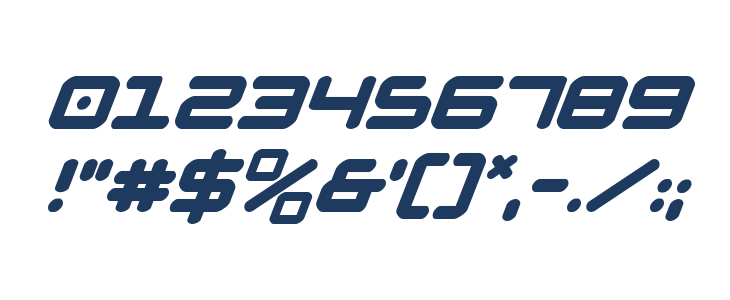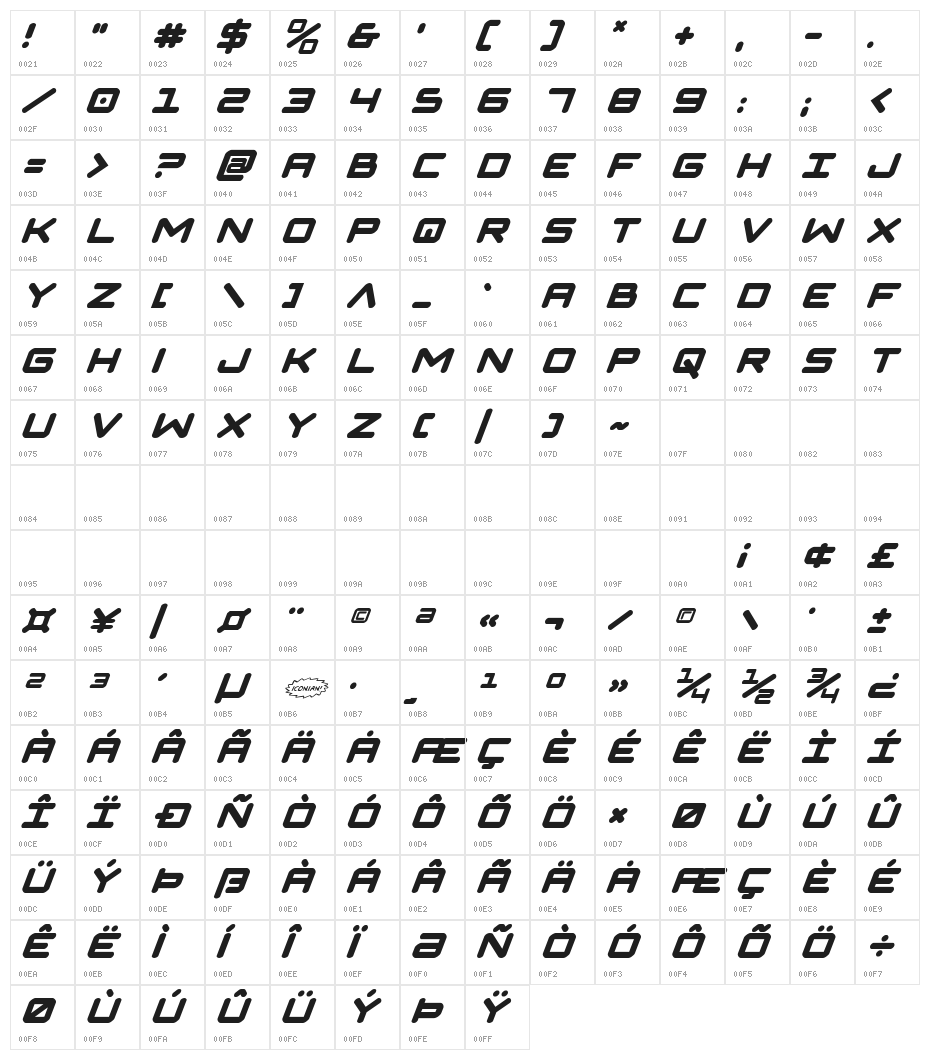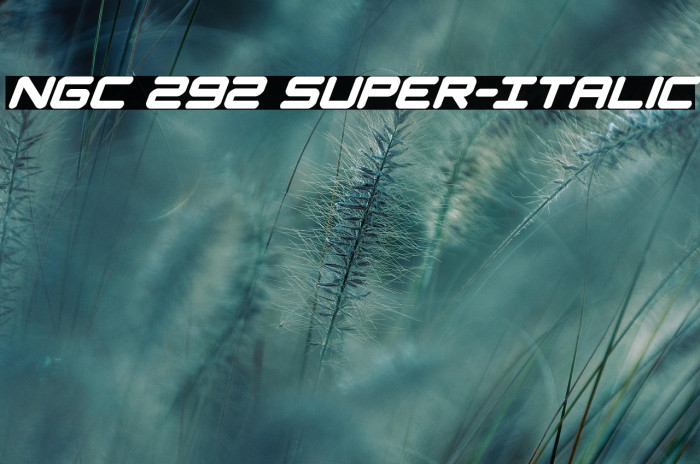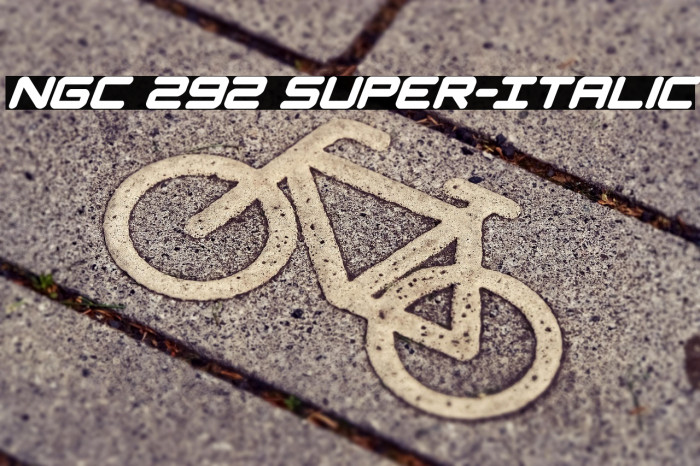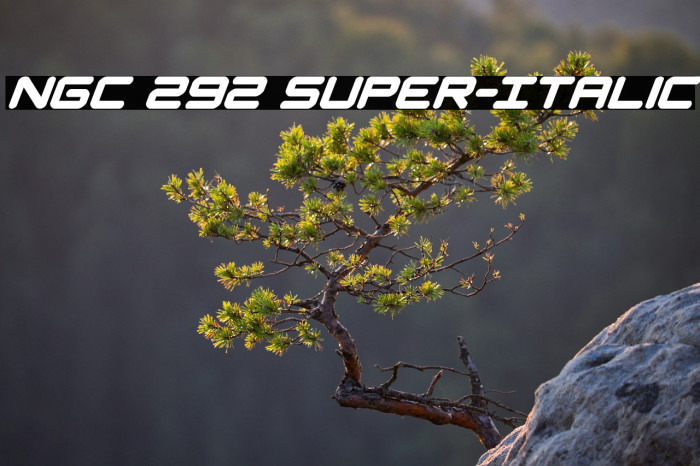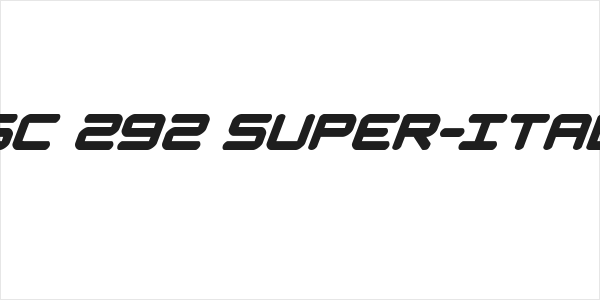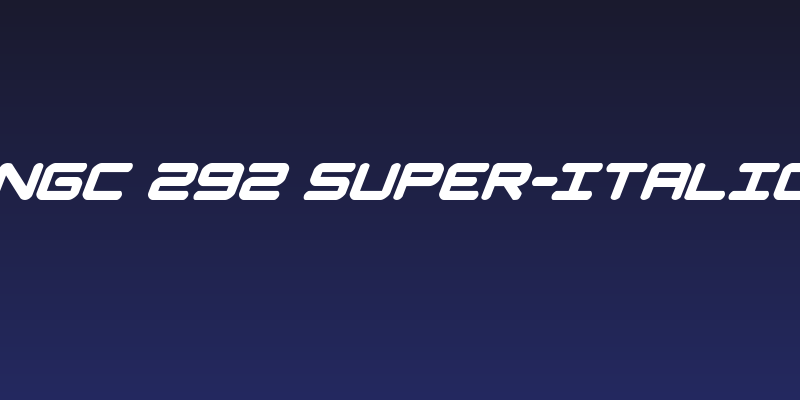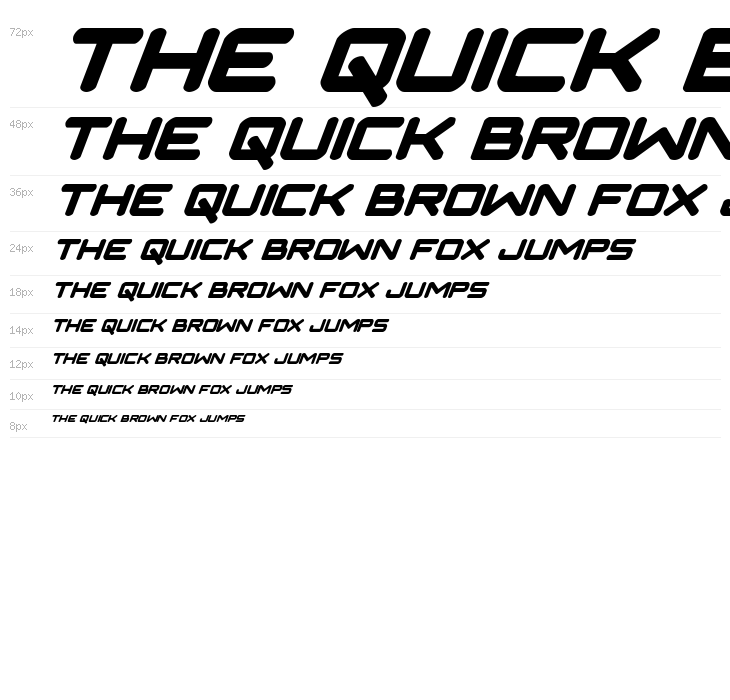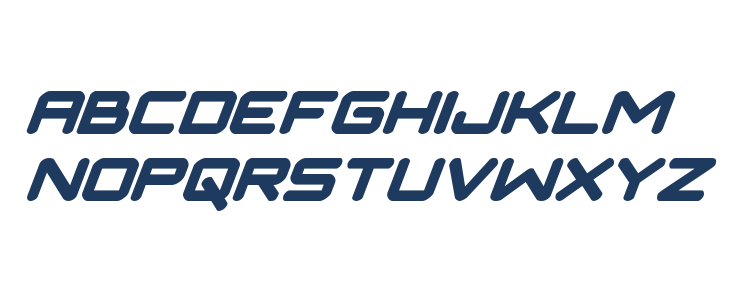
NGC 292 Super-Italic Font
NGC 292 Super-Italic Description
This font features a sleek, modern design with a distinct italic slant, giving it a dynamic and forward-moving appearance. The characters are bold and slightly condensed, with smooth curves and sharp edges that create a sense of speed and efficiency. The uppercase and lowercase letters maintain a consistent style, while the numerals and special characters complement the overall aesthetic. The font's futuristic look makes it suitable for technology-related projects, branding, and advertising that requires a contemporary and energetic feel.
| Use Case | Logos, Headlines, Advertising |
| Proposed Projects | Ideal for technology branding, sports team logos, modern advertising, and dynamic web design. |